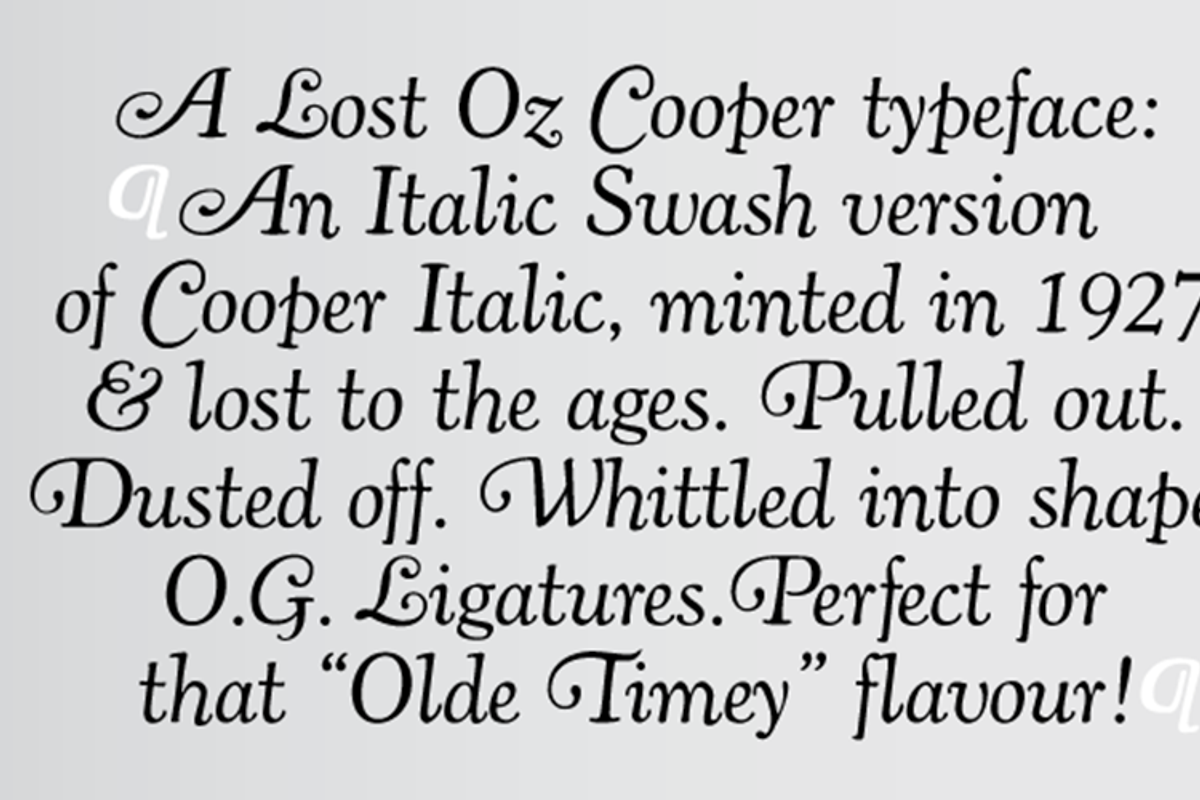
Cooper Italic Complete
This typeface is the definitive version of Oswald Bruce Cooper’s classic typeface Cooper Italic.
1924 saw the release of Cooper Italic, the italic companion to Cooper Oldstyle. Cooper Italic possesses “a most unusual swing” in a number of the characters, most specifically the scooped, pigeon-toed feet of the lowercase “n”, “h”, and “m”. These idiosyncratic characters are offset by more stately and assured capitals. Cooper said that his Italic is “much closer to its parent pen form than the roman” and “that freedom is almost the life of it”.
Cooper was a firm believer in creating humanist letterforms that echo the hand that created them, not wringing the life out of them through refinement and mechanization. In Cooper’s own words about Cooper Italic, "The designer is conscious of its crudity, and of its irreverence for the best traditions. But he believes that there are enough good types already– that the need is for poor types that can be used! And since he admits this to be a poor one, there now remains to be found out only whether it is usable or not." Cooper was long a believer that good type should be homely- if too pretty or sleek, it’s lifespan would be exponentially shortened.
Cooper designed a set of swash capitals to pair with Cooper Italic in 1927 that had not been released until now. The swash capitals are a lively interpretation of round serifed oldstyle caps mixed with classic Caslon italic forms.
These two typefaces are the result of researching Cooper’s original drawings and series of engraved proofs for both typefaces. The typefaces include the original ligatures (never before released digitally), the previously unreleased Swash characters, and a range of punctuation and diacritics, et al, that fill out a full character set. The typefaces have been lovingly kerned for the smoothest result in text setting.